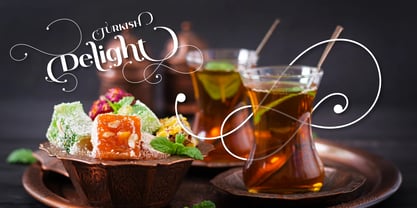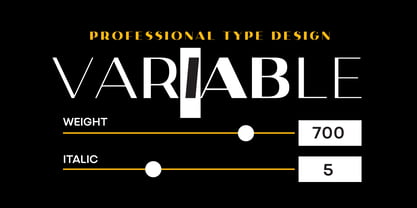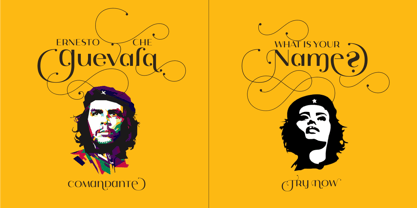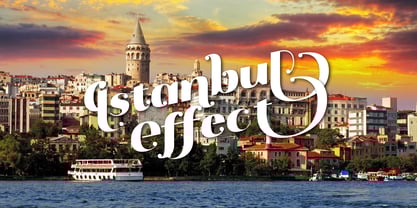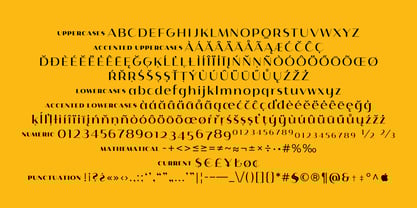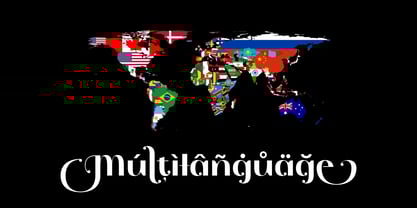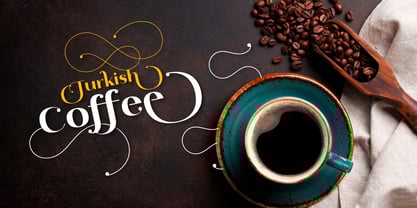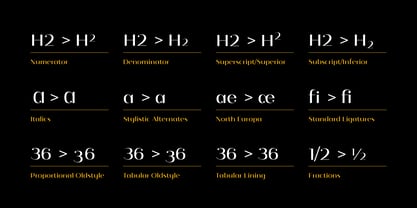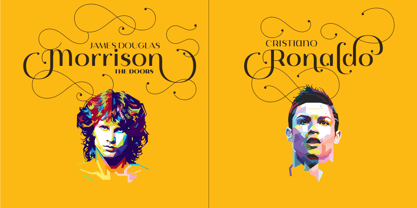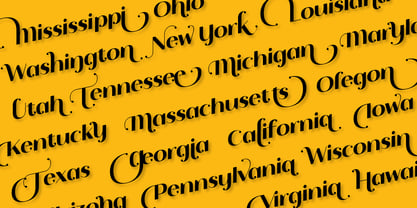
Istanbul Type Variable
"Istanbul Type Variable" has a modern streak which is the result of a harmonization of width and height especially in the lowercase letters to support legibility.
"Istanbul City" has the modernity of the west and the orientalist texture of the east as the city that unites the Asian and European continents. "Istanbul Type Variable" also includes these features. It is a unique character that reflects the spirit of "Istanbul City". Many letter alternatives prepared with care have been created for all letters. You can make dozens of combinations from a word using these alternative letters.
"Istanbul Type Variable" is an effective set for creating identities for branding, posters, book covers, headlines, logotypes, restaurants, menu cards, wedding invitations and so on.
"Istanbul Type Variable" provides advanced typographical support for Latin-based languages. An extended character set, supporting Central, Western and Eastern European languages, rounds up the family.
The designation “Istanbul Type Variable 500 Regular” forms the central point. The first figure of the number describes the stroke thickness: 100 Thin to 900 Bold. "Istanbul Type Variable" 5 weights and italics total 10 types. The family contains a set of 2.200+ characters.
Case-Sensitive Forms, Classes and Features, Fractions, Superior, Inferior, Denominator, Numerator, Old Style Figures just one touch easy In all graphic programs.